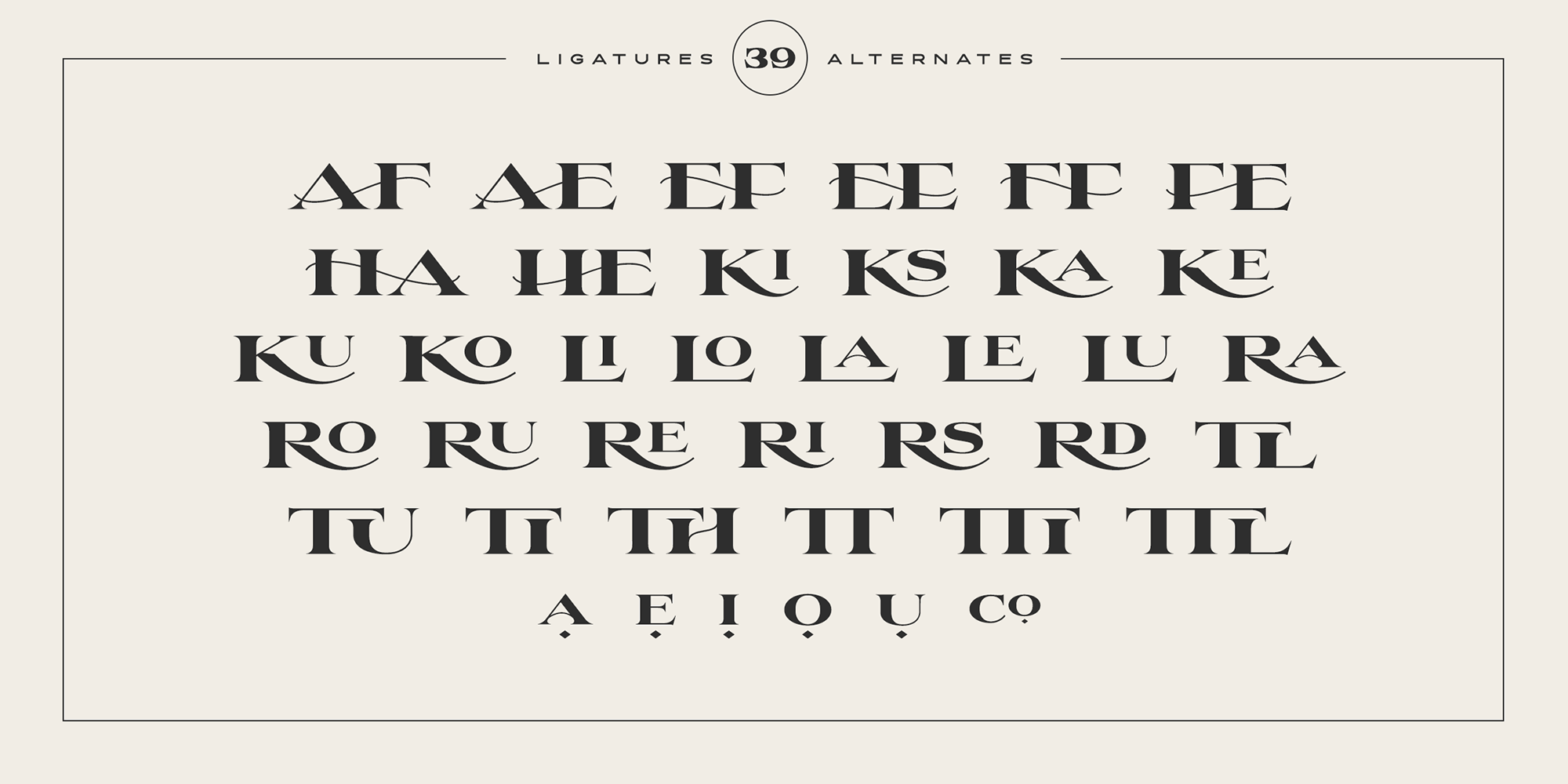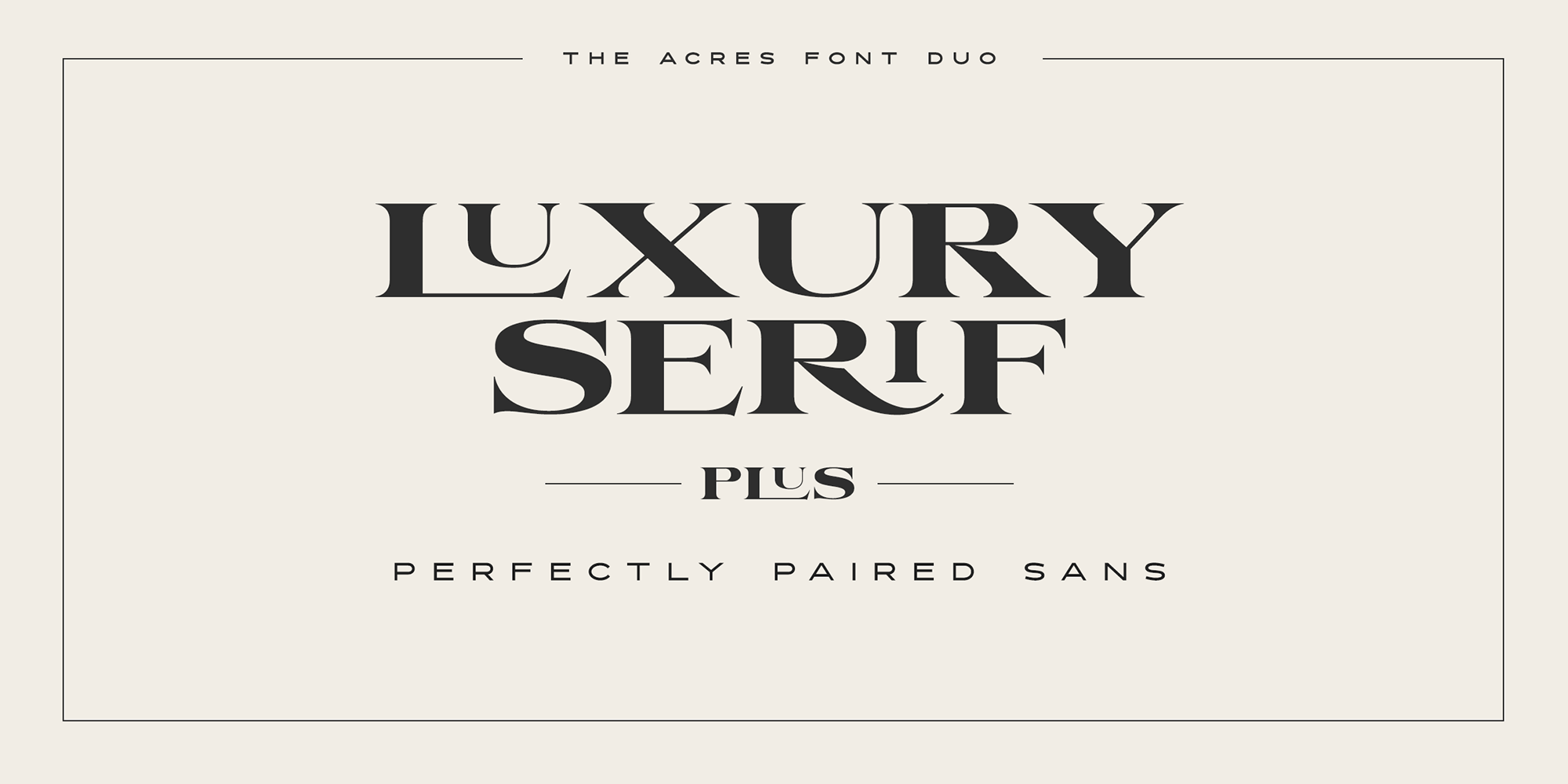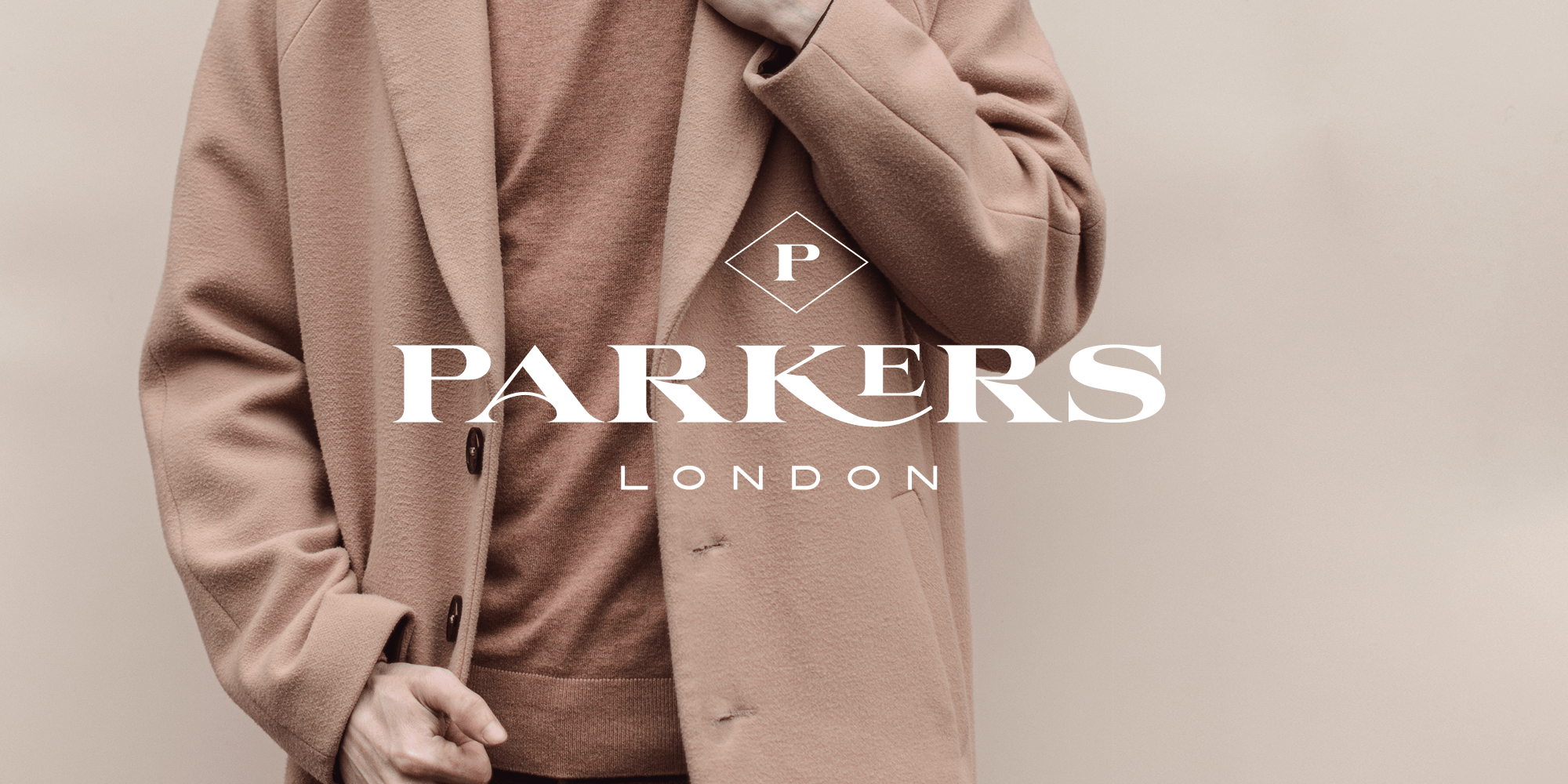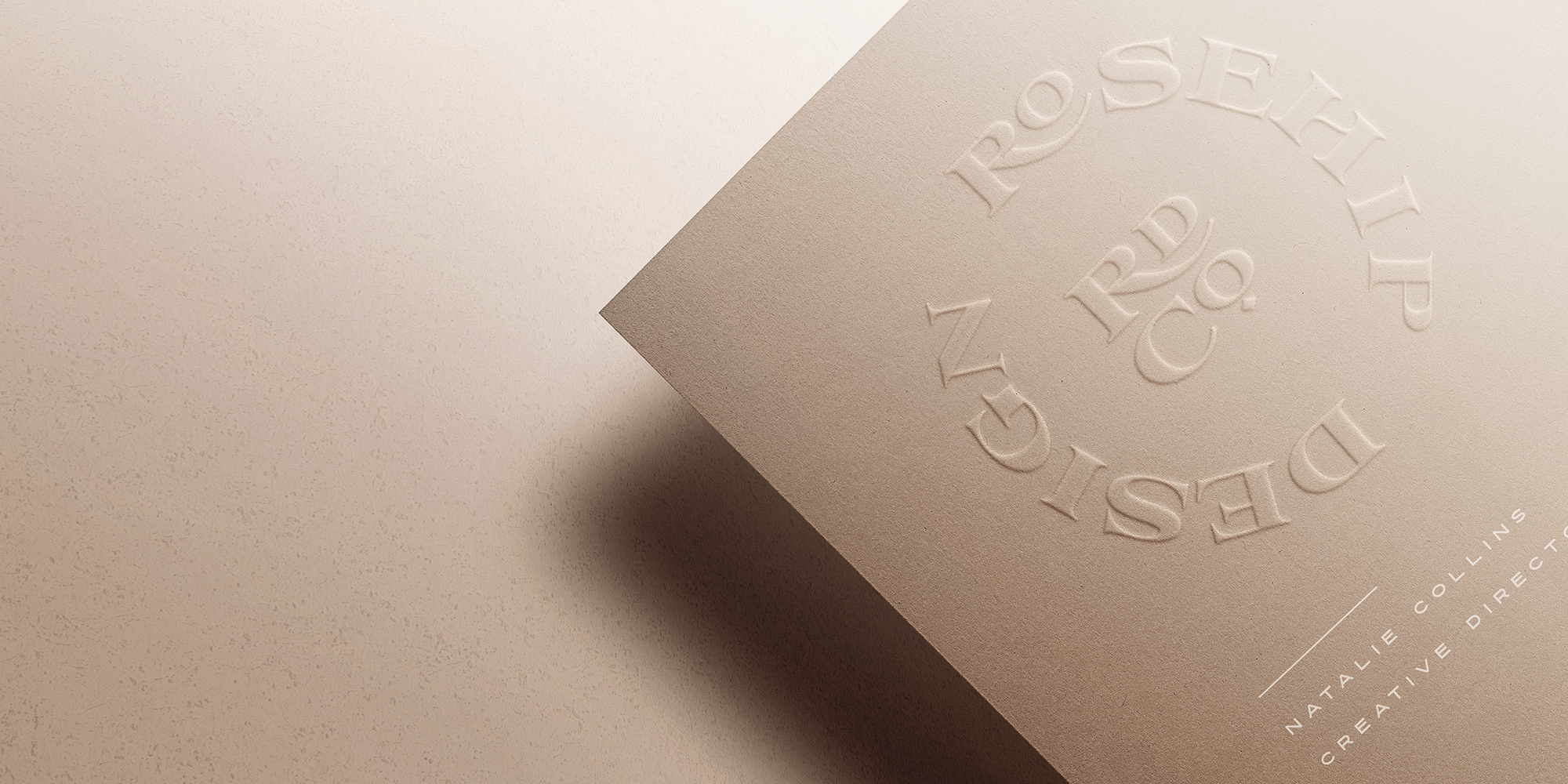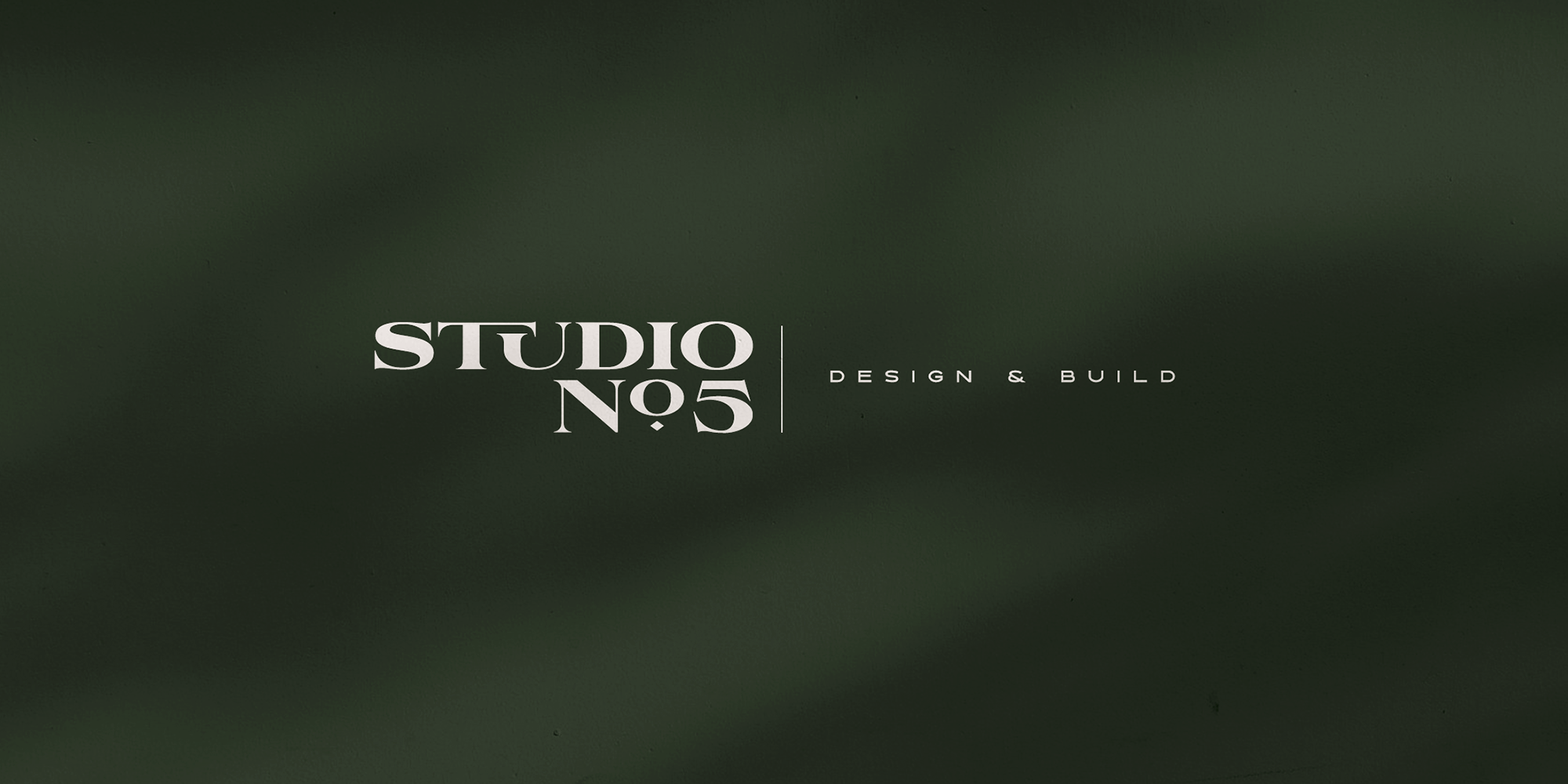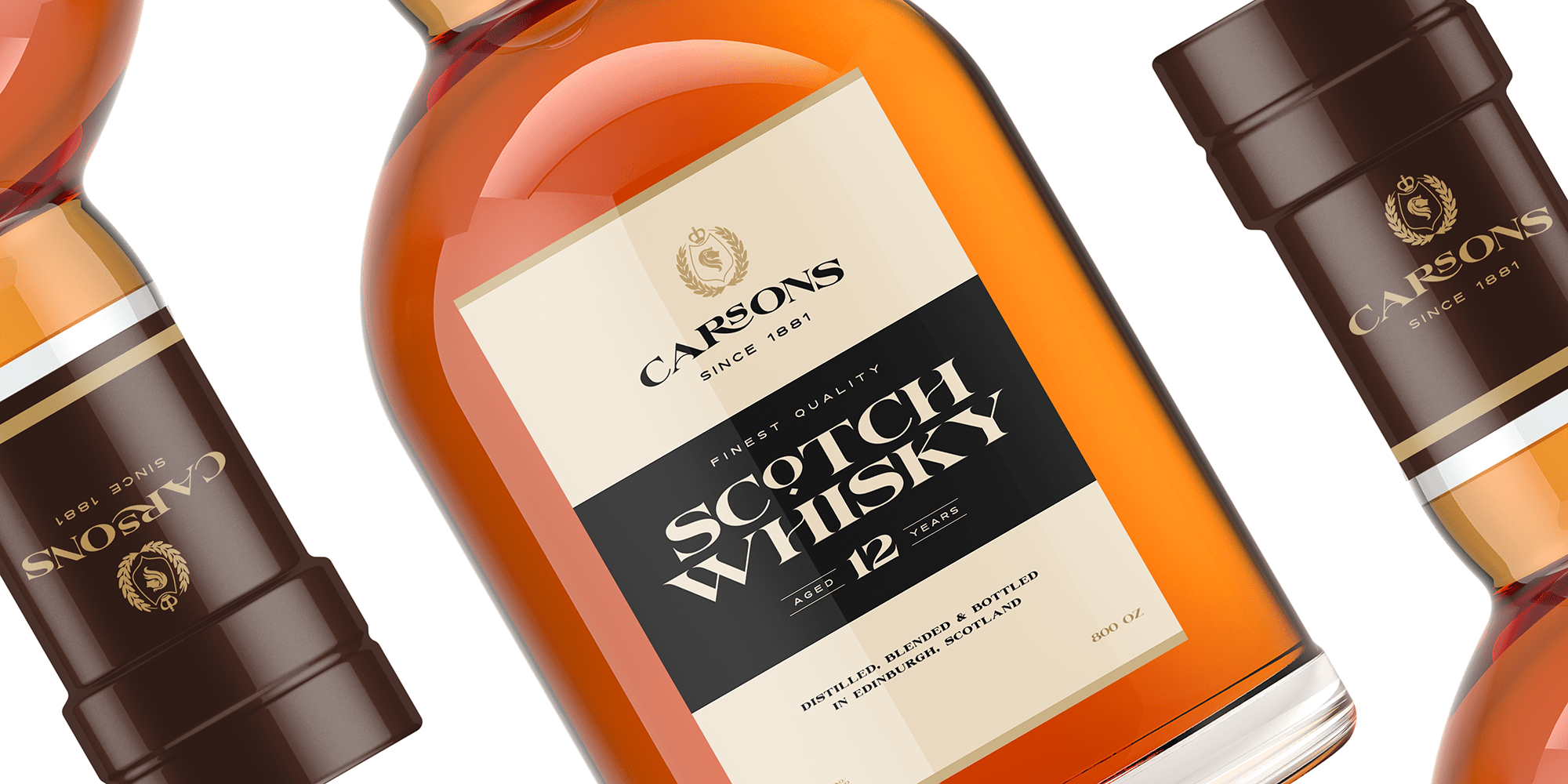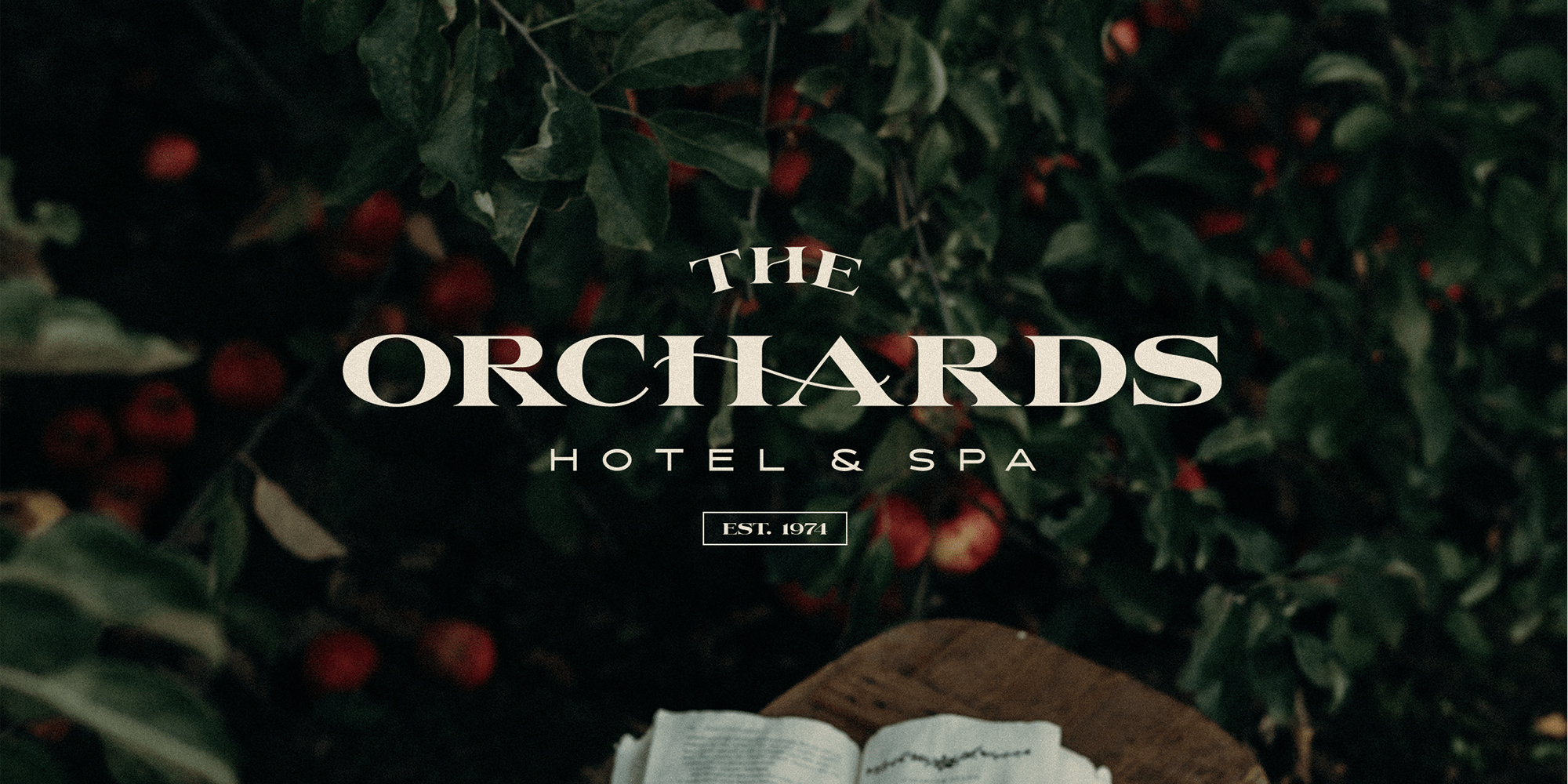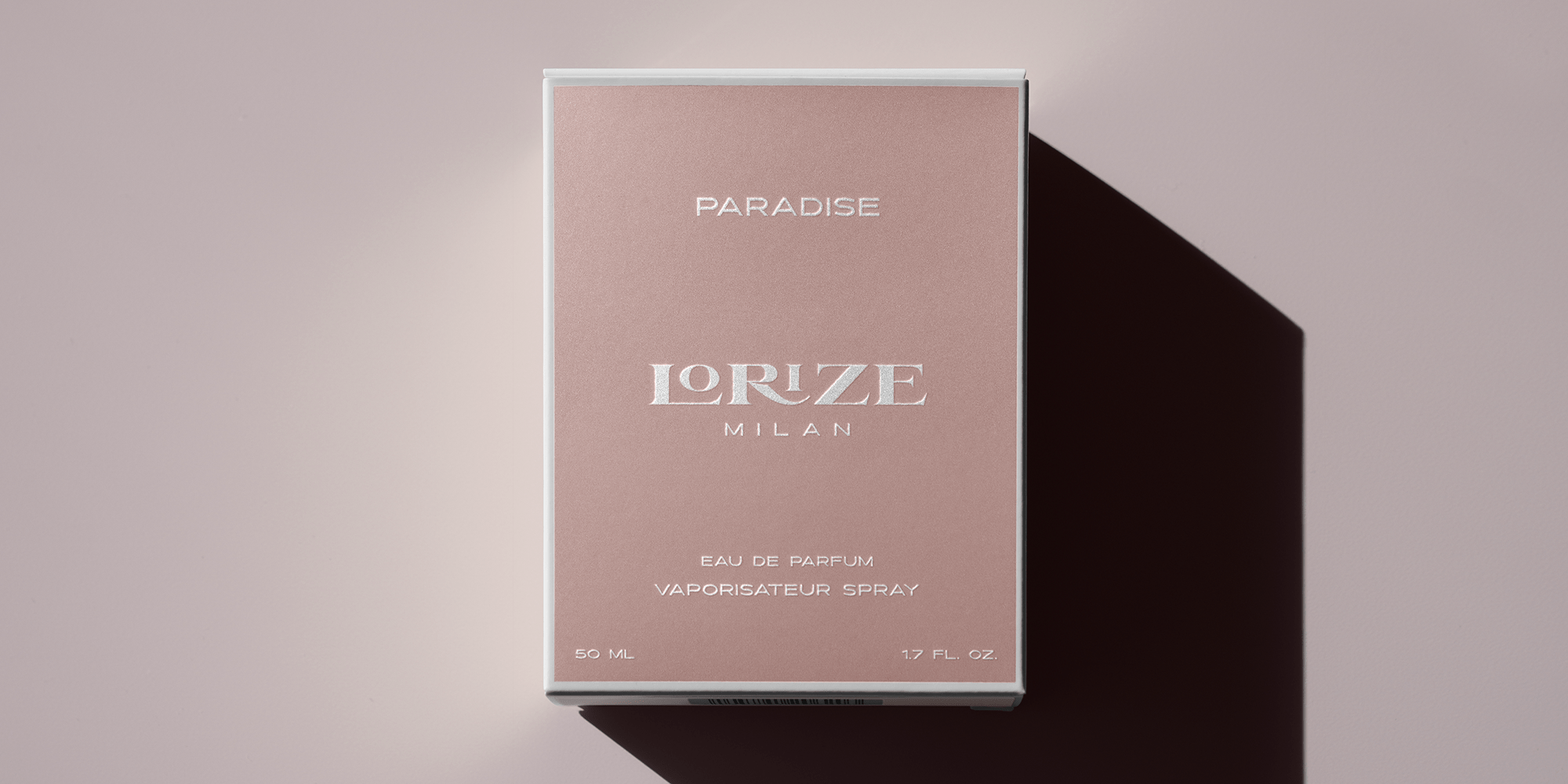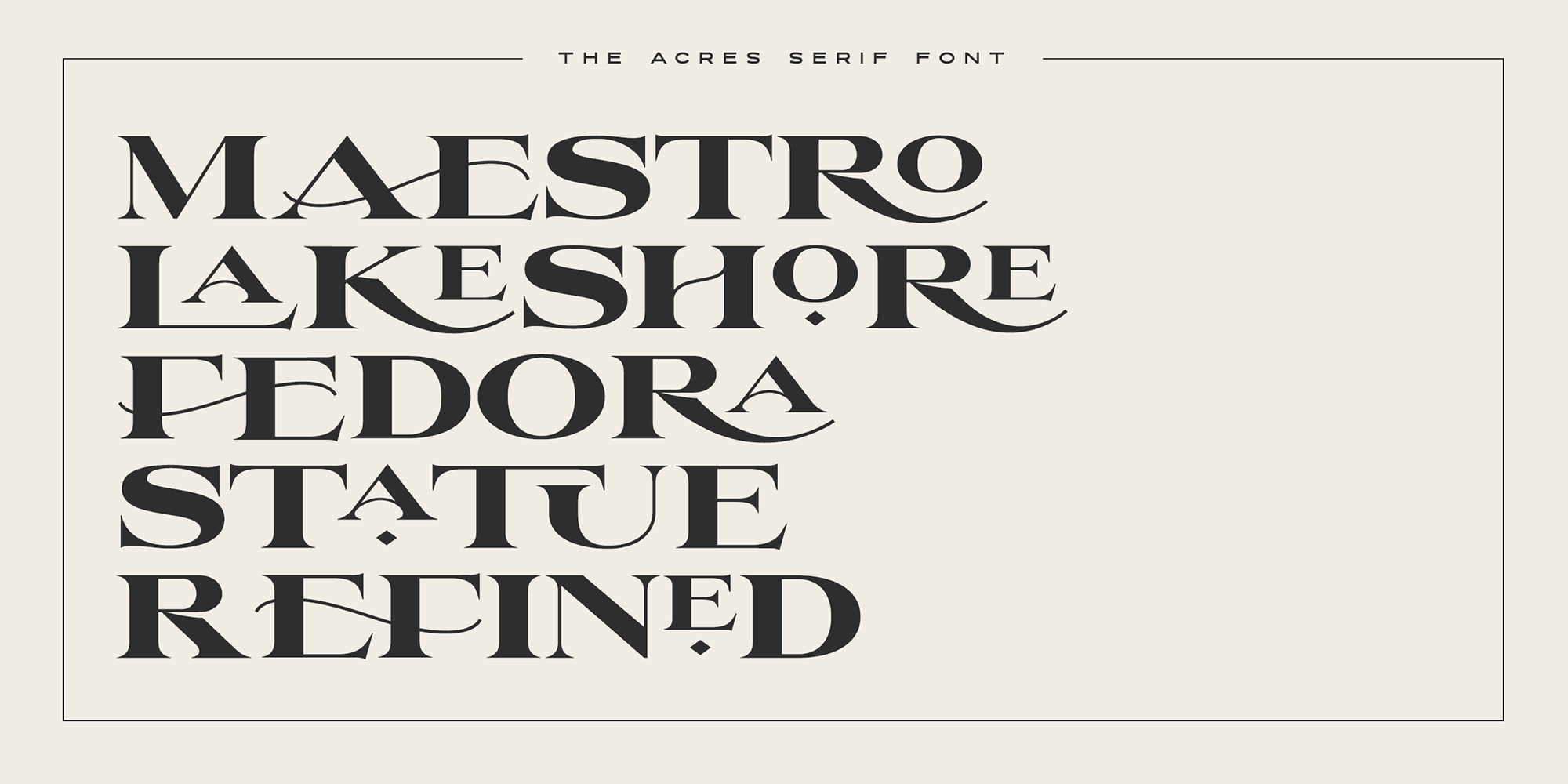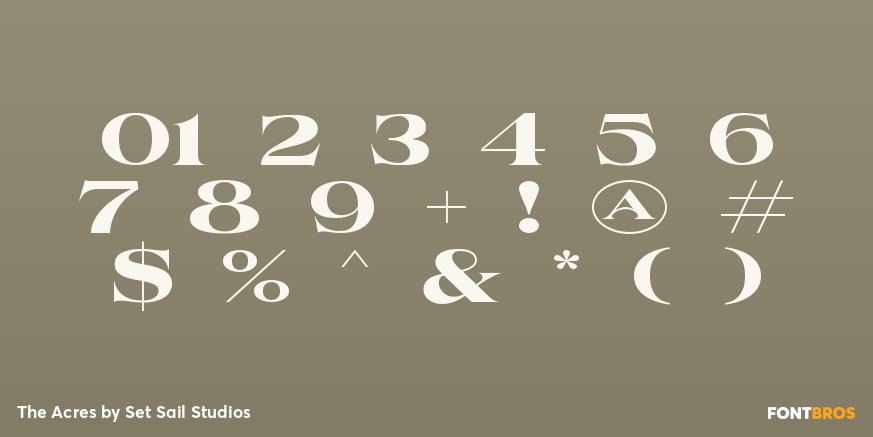
The Acres
Introducing The Acres Font Duo - A luxury Sans & Serif all-caps font duo. Take away the painstaking search for the perfect font pair, as these typographic partners were made for each other. The Acres Serif is a wide, high contrast serif font, designed with high-end looking branding in mind. The Acres Sans is a simple, elegant sans font, designed to compliment the serif font as secondary text.
Accessing Ligatures & Extras • The Acres Serif Also contains 33 specially designed ligatures (double and triple letter combinations), to give you extra customisability. These Standard Ligatures should switch automatically when using OpenType capable software. The font is all-caps, however the ligatures will only switch when typing in capitals (i.e. turning off caps-lock gives you a quick way of turning off ligatures). There are also raised small-caps for A,E,I,O,U, these can be accessed by turning on 'Stylistic Alternates', and simply typing each letter in capitals.
All special characters can also be manually inputted via a Glyphs panel.